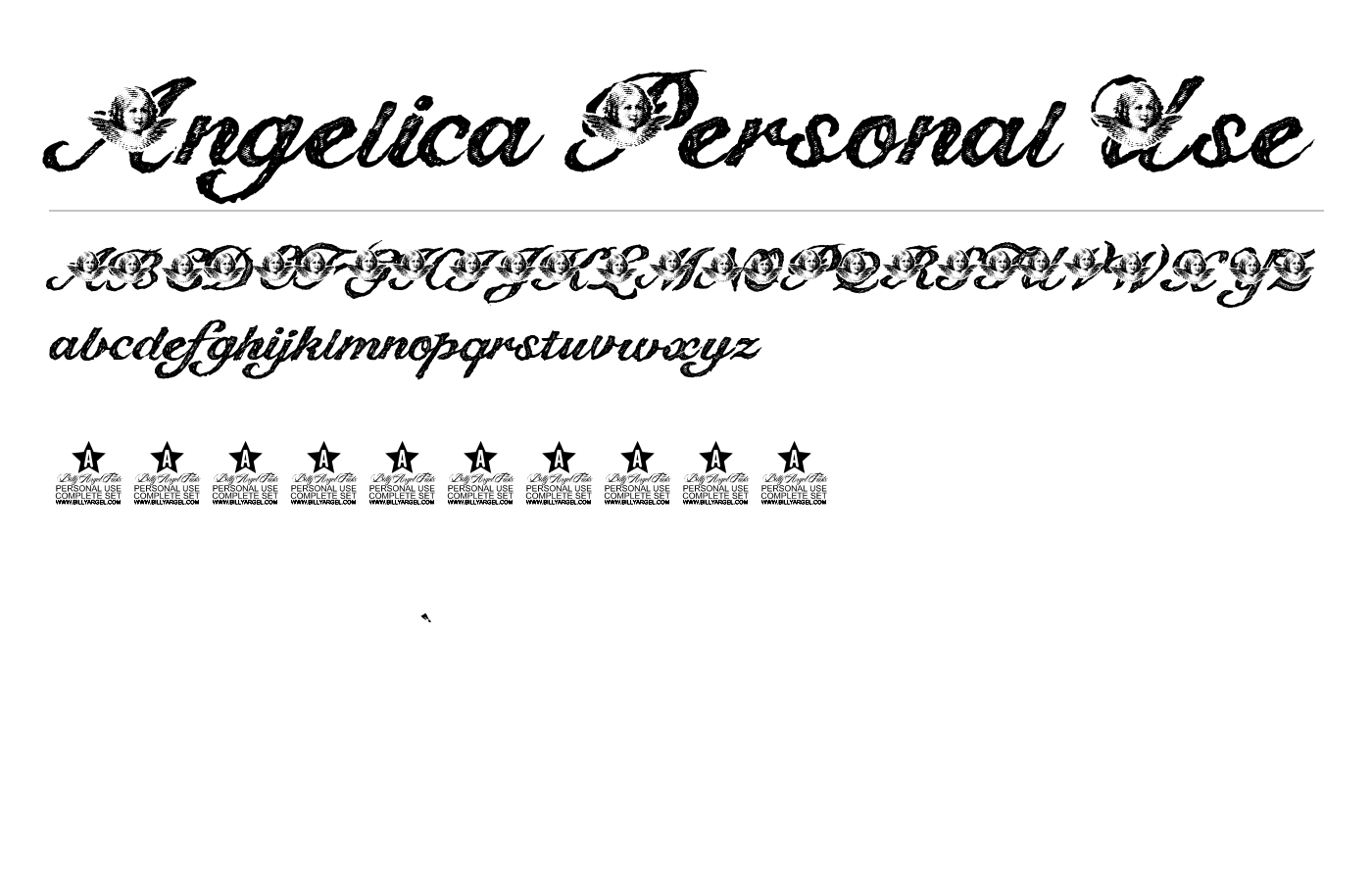
Angelica Personal Use Font is a decorative script typeface with a flowing, handwritten style that evokes a vintage and elegant feel. It features delicate, connected letterforms with moderate contrast and subtle flourishes, making it perfect for personal projects, invitations, or branding that seeks a charming, classic touch. This font's graceful curves and distinctive personality lend a warm, nostalgic mood, ideal for creative and artistic expressions.
Angelica Personal Use Font
About Angelica Personal Use Font
| Font family | Angelica Personal Use Font |
| Font subfamily | Medium, Italic |